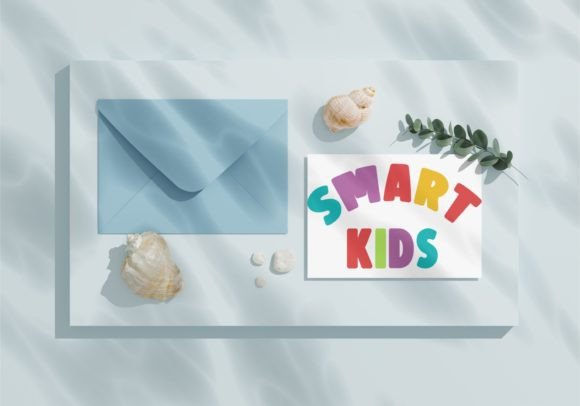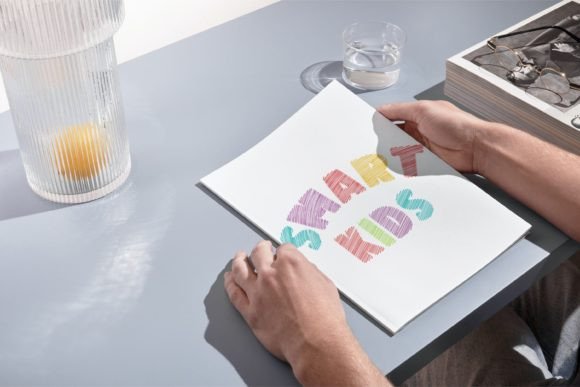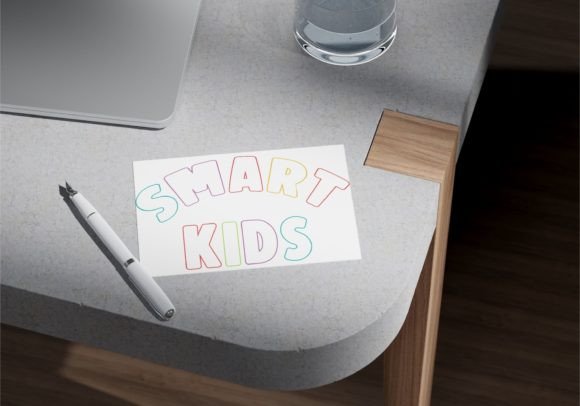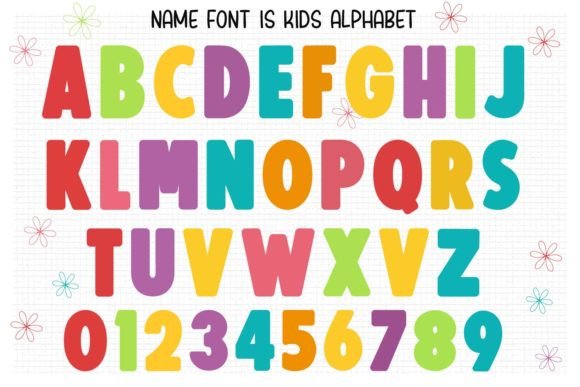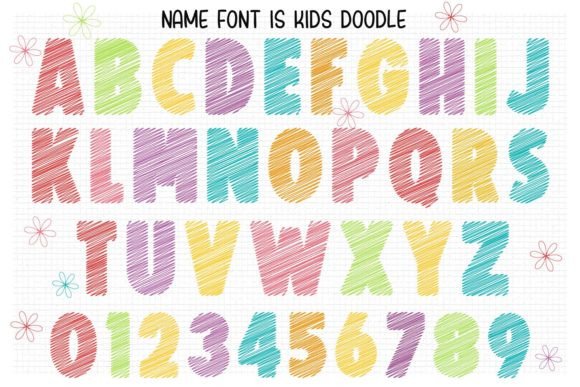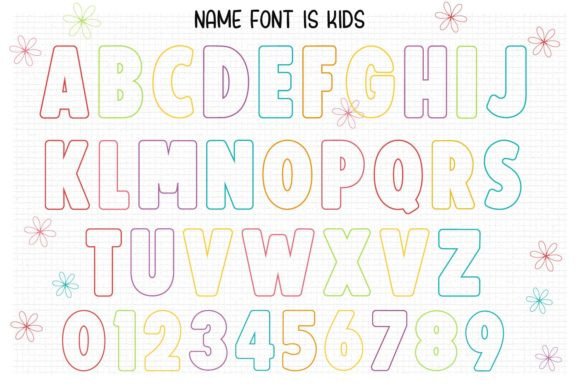
Unleashing Creativity: Introducing the Adorable Kids Font
Have you ever found yourself staring at a blank canvas, struggling to bring your creative vision to life? We’ve all been there. The blank page can be daunting, but what if you had the perfect tool to spark your imagination? That’s where the delightful Kids Font comes in – a charming display font designed to add a touch of whimsy and fun to your projects.
Created to evoke a sense of childhood wonder, Kids Font is the perfect addition to any design project that needs a playful twist. Whether you’re working on a children’s book, a branding campaign, or a social media post, this font is sure to make your creations stand out. As a designer, you know the value of a well-chosen font – it can elevate your work from ordinary to extraordinary.
Kids Font Key Features
- Unique Characteristics: Features rounded edges, smooth curves, and a playful style, making it perfect for children’s educational materials, nursery rhymes, and kids’ apps.
Designer Review: Kids Font
Overall, I think “Kids Font” has a lot of potential, but it also comes with some limitations that might make it less suitable for certain projects.
- ✨ Colorful and playful: The font has a very childlike and whimsical feel to it, making it perfect for kids’ educational materials, nursery decor, or children’s book covers.
- ✨ Fun characters: The font includes a range of cute and quirky characters that can add a lot of personality to your designs.
- ✨ Easy to use: The font is relatively easy to use, even for designers who are not familiar with sans-serif fonts.
- ⚠️ Limited versatility: While the font is perfect for children’s content, it might not be the best choice for more formal or professional projects.
- ⚠️ Limited font sizes: The font is designed to be used at larger sizes, and it might not look as good at smaller font sizes.
- ⚠️ Limited international support: The font might not be supported in all languages or character sets, which could limit its use in certain projects.
Kids Font is a fun and playful font that can add a lot of personality to children’s content. While it has some limitations, it’s a great choice for designers who want to create engaging and whimsical designs for kids. However, it might not be the best choice for more formal or professional projects.
For best results, use “Kids Font” for headings and titles, and pair it with a clear and readable font for body text.
Remember to use “Kids Font” sparingly, as it’s meant to add a touch of whimsy and playfulness to your design.
For best results, use “Kids Font” for headings and titles, and pair it with a clear and readable font for body text.
Use “Kids Font” for:
Children’s book illustrations and designs
Party invitations and decorations
Education and learning materials
Remember to use “Kids Font” in moderation, as it’s meant to add a touch of fun and playfulness to your design.